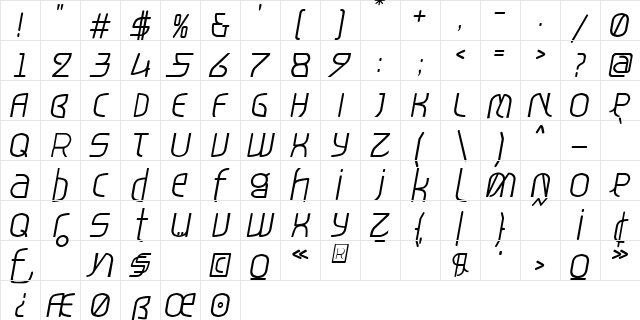
TT Medium
| Foundry | Tom Tor |
| Designer | Tom Tor |
Design Context for TT Typeface
TT offers clean, dependable letterforms without strong stylistic allegiance, making it a practical choice for designers who need flexibility.